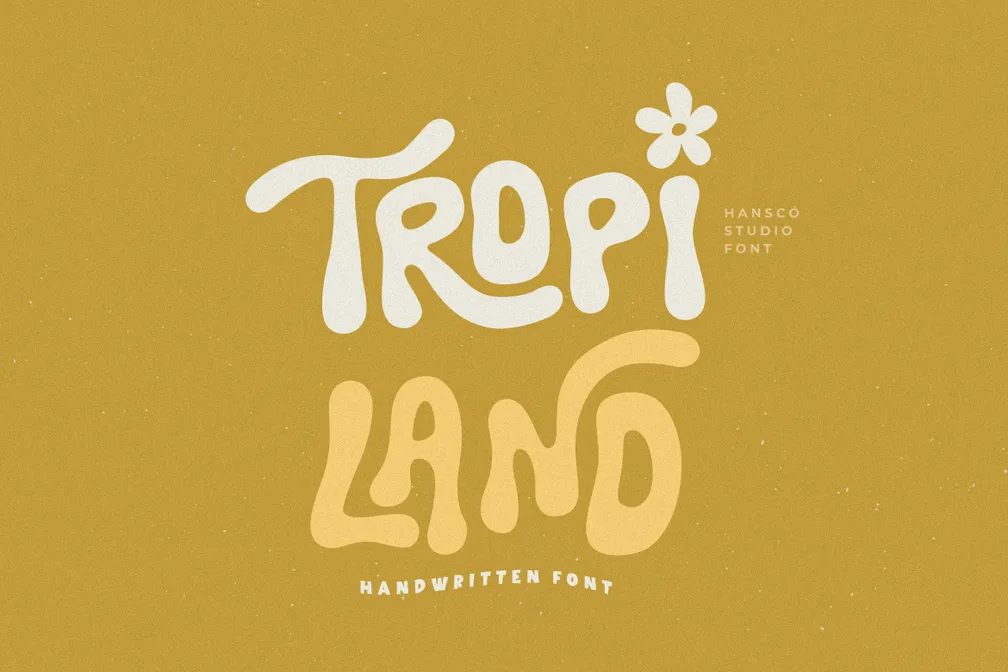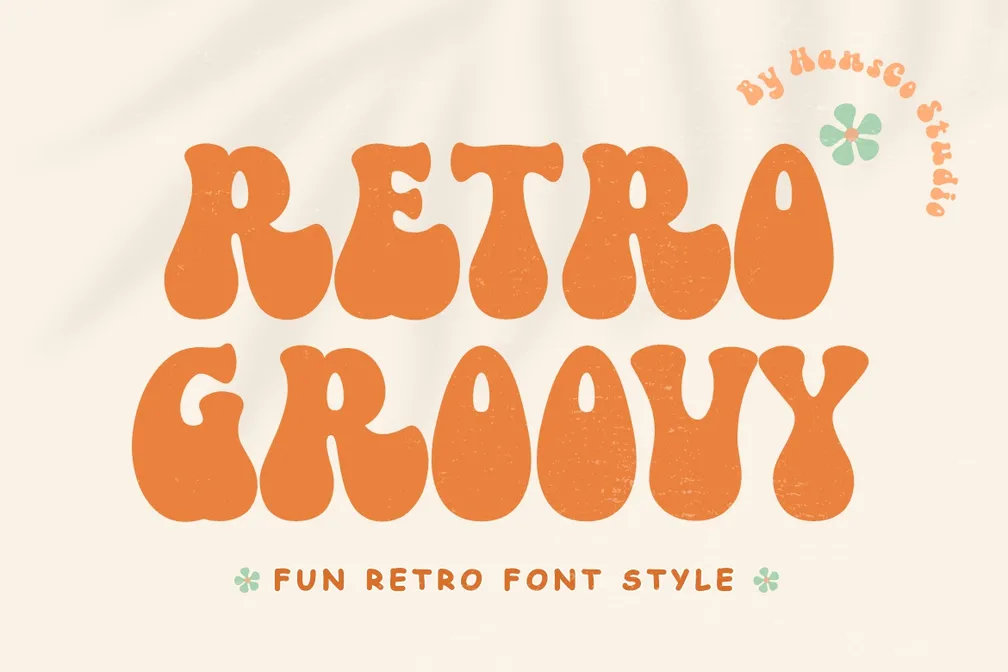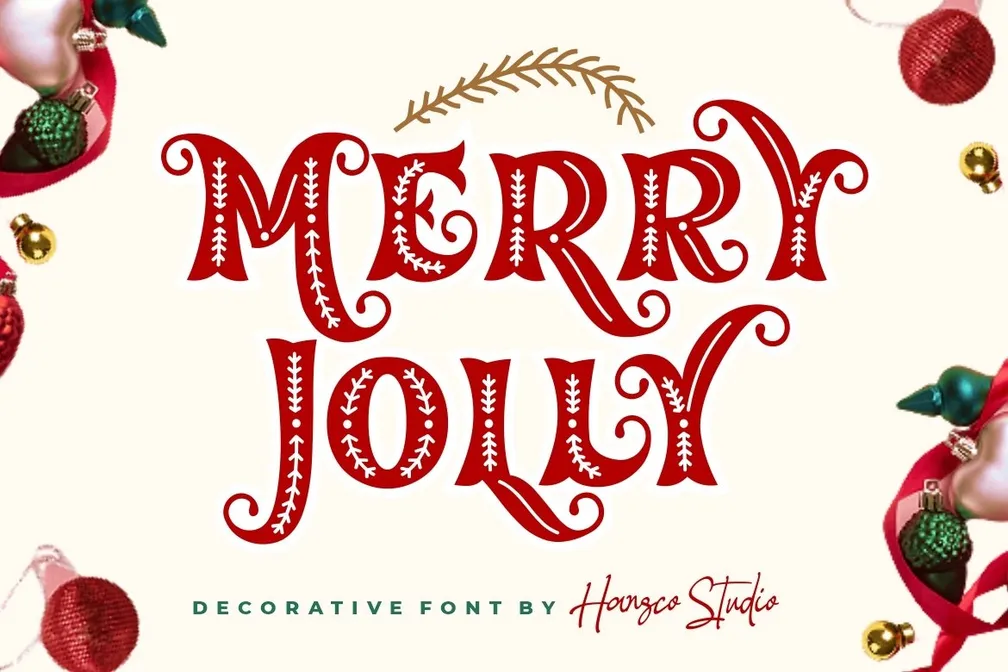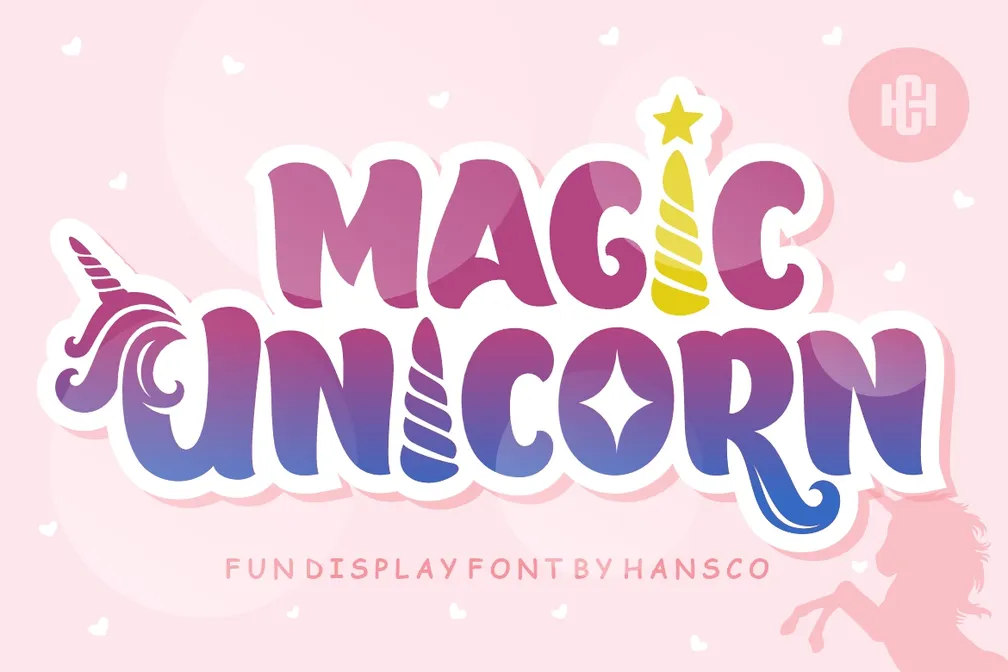
32 Best Modern Fonts for Animated Projects for Engaging Visuals
The best modern fonts for animated projects are more than just visual elements; they play a key role in shaping how your animation feels, moves, and connects with the audience. The right font can enhance storytelling, improve readability in motion, and create a stronger emotional impact across every scene.
In fact, research from the Nielsen Norman Group highlights how typography significantly affects user experience and readability. To save your time, let’s find the best by looking at our 32 list of them.
Key Takeaways:
• Choosing the right font improves readability and storytelling in animation.
• Modern fonts help create engaging, dynamic, and visually appealing designs.
• Versatile fonts with unique styles add personality and enhance creative impact.
32 Best Modern Fonts For Animated Projects
A well-selected font helps convey emotion and keeps the audience engaged. Below are some of the best picks to enrich your animated projects with style and clarity.
1. Dino Saur
When paired with bold character concepts like dinosaurs, this font helps create a friendly, memorable atmosphere while keeping text readable.
2. Magic Unicorn
With its fun and expressive style, Magic Unicorn delivers a joyful and charming look that stands out effortlessly.
3. Mermaid
Designed with a fun, charming look, Mermaid adds personality that sparks a fresh, youthful vibe that highlights joy and movement.
4. Nightmare
Nightmare is a playful duo font featuring both display and dingbat styles with a fun horror-inspired theme. It adds personality and impact that explores fantasy-driven themes.
5. Snow Bold
Snow Bold delivers a cute and modern display style. It’s often considered one of the best modern fonts for animated projects, especially for winter and holiday storytelling.
6. Winter
Winter is a simple yet uniquely styled display font that brings a clean and refreshing feel. Perfect for cold-season design ideas, to feel expressive and visually engaging.
7. Cute Meow
With its adorable and expressive style, this is the best font for animation, a display font that adds a fun and eye-catching personality that feels vibrant in every detail.
8. Hi Panda
Thanks to its cute and original design, Hi Panda feels raw, authentic, and full of character. It brings a more natural and engaging tone.
9. Daily Bubble
Daily Bubble offers two versatile styles, clean and decorative, making it a modern and bold display font. It adds visually rich elements and a dynamic feel.
10. Smothy
Smothy brings a fun, bubbly personality that makes animated projects more lively and expressive. Available in Regular, Bubble, and Shadow styles, it fits perfectly within the best modern fonts for animated projects.
11. Stay Peach
Stay Peach is a bold and playful retro sans-serif font with a fresh modern twist. Designed with a cute, chubby character, it adds personality to animated projects.
12. Happy Times
Happy Times Font is a retro, groovy display typeface that brings a fun, vintage vibe. The included alternative swashes give extra creative flexibility to give an expressive and playful vibe.
13. Tropi Land
Tropi Land brings a flowing, playful handwritten style that feels organic and full of life. With plenty of ligatures and alternates, it adds a natural visual rhythm.
14. Cutie Kitty
A handwritten script font that delivers a cute and stylish look. With its complete character set, it’s perfect to create a soft, playful, and eye-catching visual touch.
15. Shine Bubble
With its clean retro aesthetic and bold modern style, Shine Bubble brings both character and decorative charm. Offered in two versions, it stands out as one of the best modern fonts for animated projects, adding a cheerful and bubbly touch to any design.
16. Soul Wave
Soul Wave blends a modern, clean look with a playful, wavy retro aesthetic. Designed to bring movement into typography, it works beautifully for the visual uniqueness.
17. Retro Groovy
With its lively vintage style and playful retro charm, Retro Groovy brings bold character and energy. Its expressive look makes it a great choice for the best font for animation, which aims to feel vibrant and nostalgic.
18. Merry Jolly
Merry Jolly sparks a standout look enhanced by elegant swirls and leaf accents. It is perfect for detailed touch, helping visuals feel richer and full of personality.